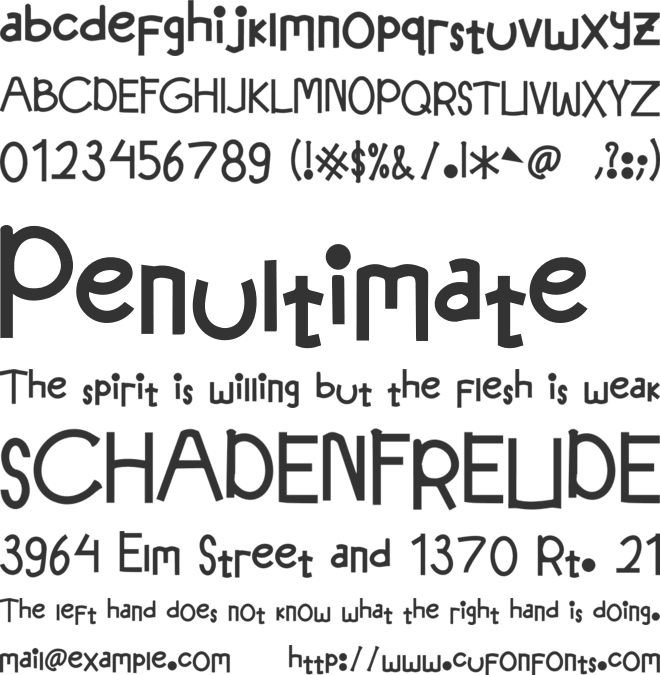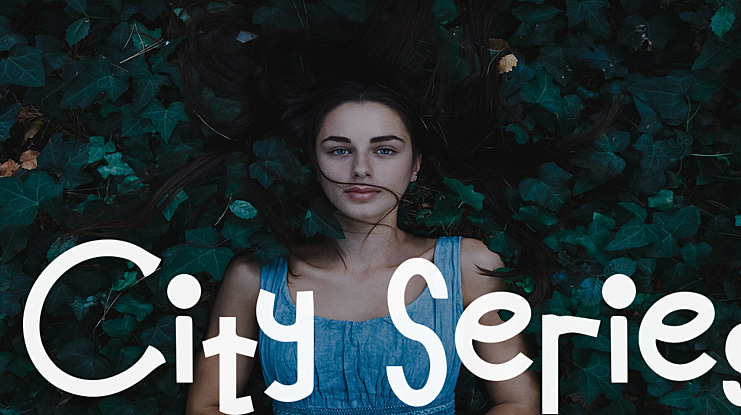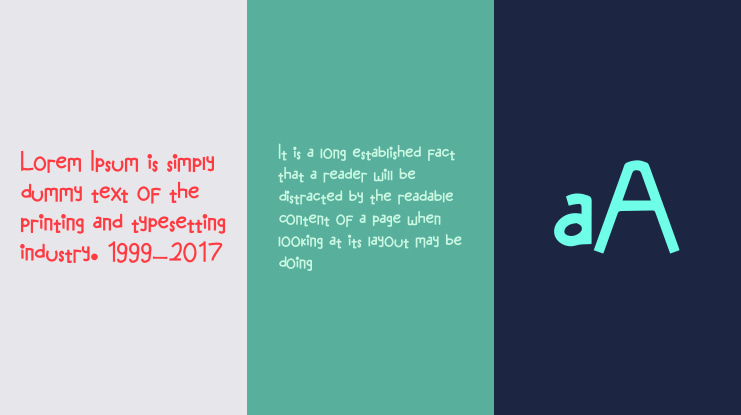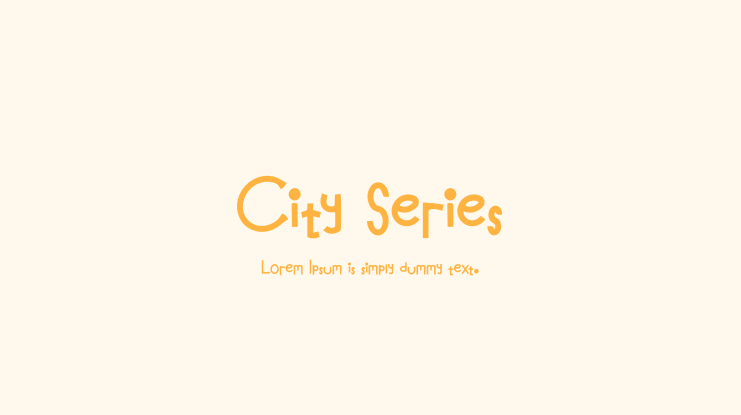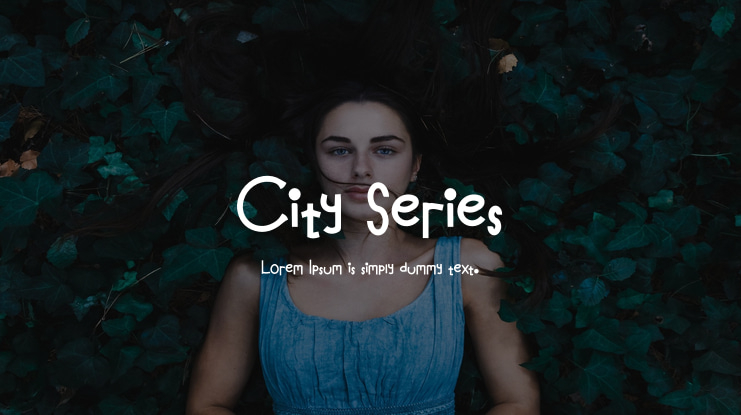
City Series Font
City Series is inspired by a snowman’s, round but pointy on some particular edges. This font will reflect the happy spirit of the holiday into your creative projects.
City Series Font is suitable for variety of design projects such as branding, logo, invitations, social media posts, advertisements, and so much more. Let’s celebrate the holiday with City Series!